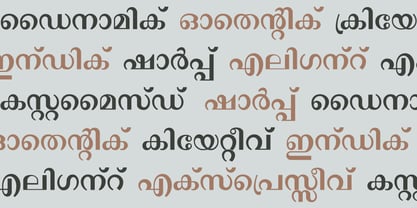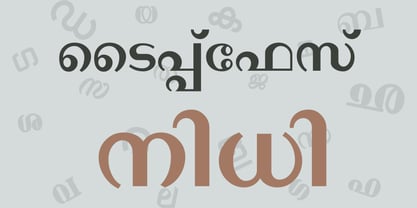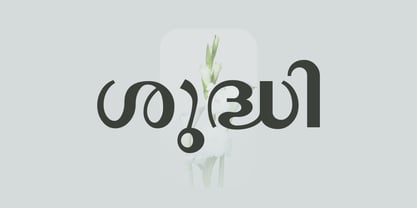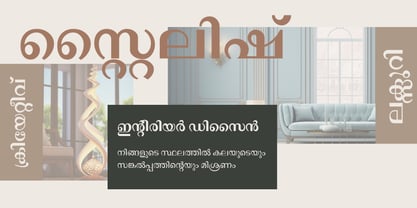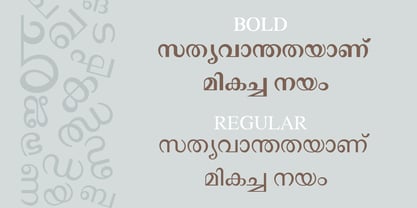
Shree Malayalam 0507
by Modular InfoTech
The Shree Malayalam 0507 Font Family was designed by Modular Infotech and published by Modular InfoTech. Shree Malayalam 0507 contains 4 styles and family package options. More about this family
Shree Malayalam 0507 is a modern typeface with a classic, refined aesthetic. Its letterforms are characterized by a delicate balance of thick and thin strokes, giving it a sophisticated and timeless appeal. The typeface offers two essential weights—Regular and Bold, each with a corresponding Italic style. It creates clear visual hierarchies, projecting a mood of elegance and professionalism. This typeface is a strong choice for literary and cultural publications, such as books, journals, and art catalogs. Its refined look makes it suitable for high-end branding, including luxury product packaging, invitations, and exclusive event materials. The extensive range of styles allows for both a graceful visual flow in body text and a powerful presence for titles and headings, lending itself well to projects that aim to merge traditional craftsmanship with a polished, modern appeal.